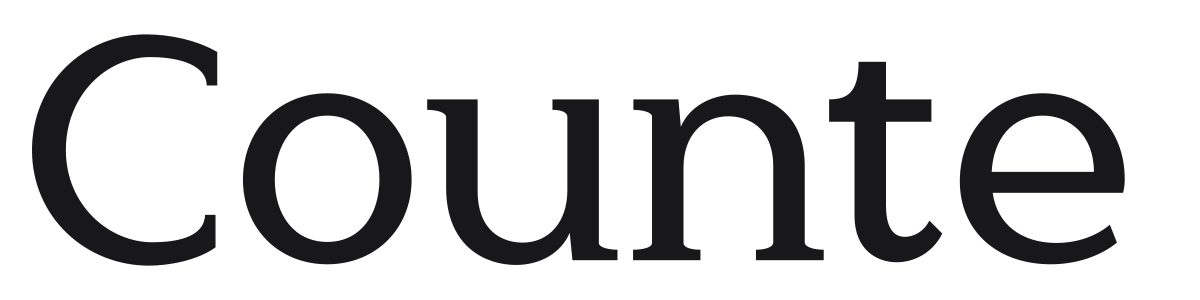
Counte
Counte is a contemporary humanist slab serif with low stroke contrast and gently bracketed serifs. The large x-height and open apertures keep it highly readable across a range of sizes, while the soft construction gives it warmth that purely geometric slabs lack. It sits comfortably in editorial, publishing, and brand contexts where readability and personality both matter.